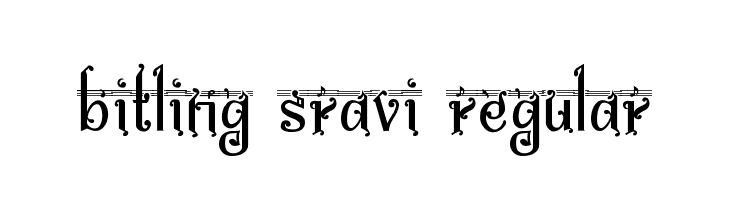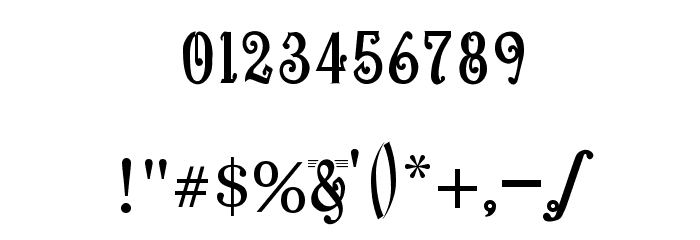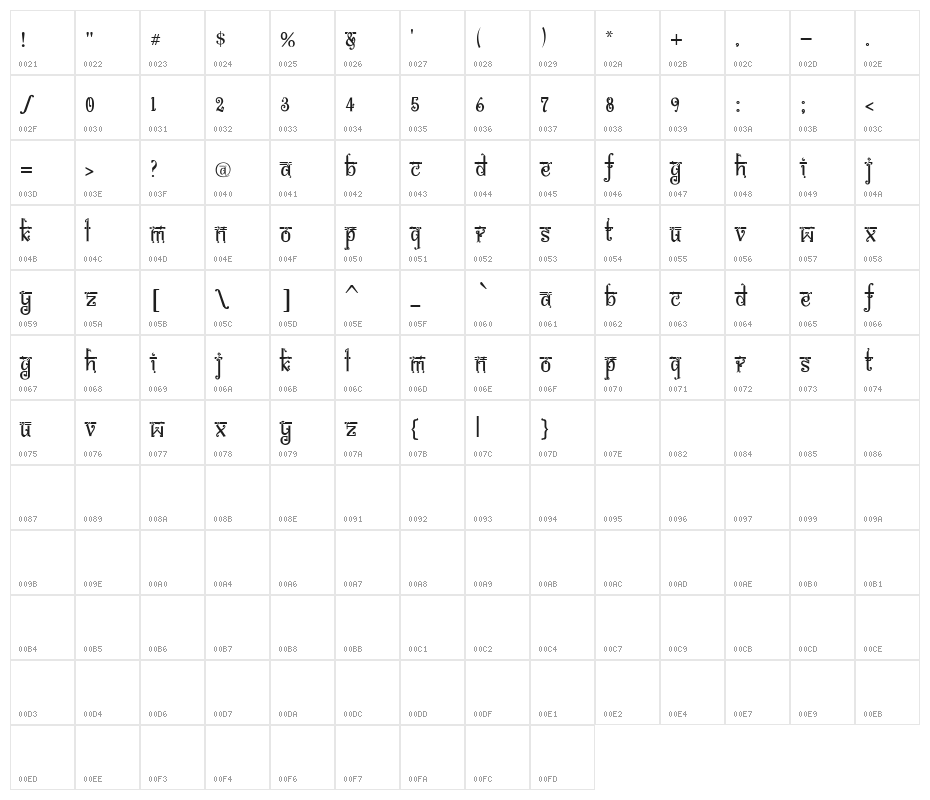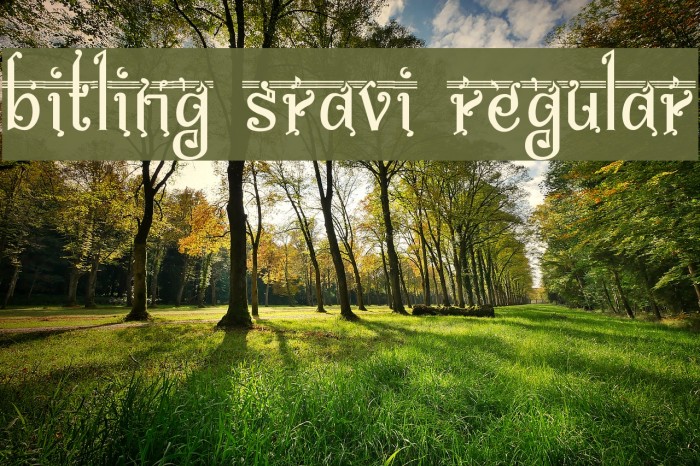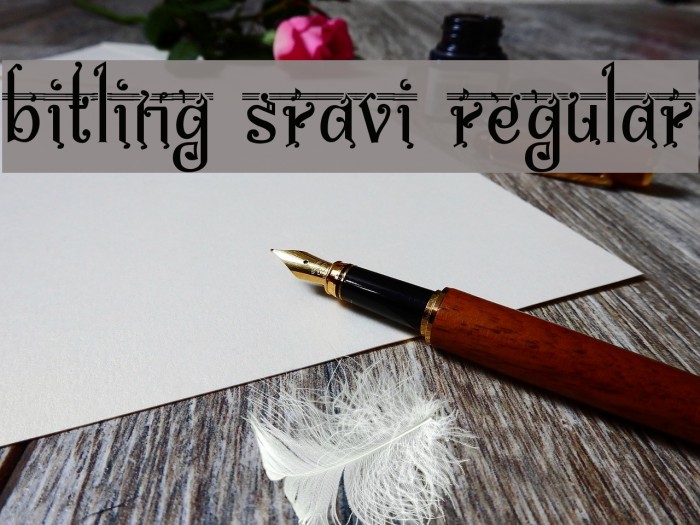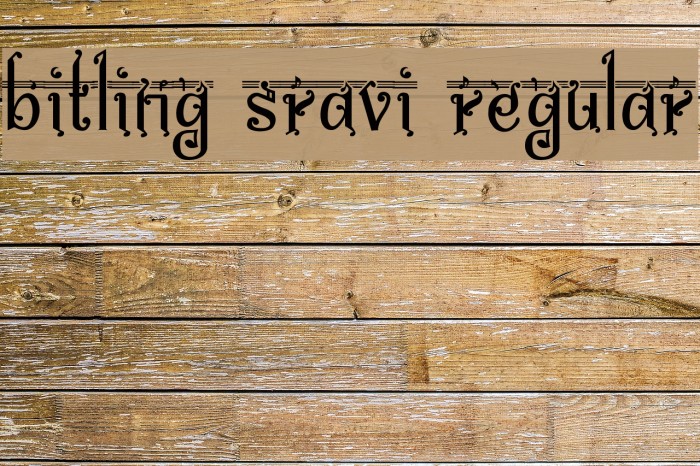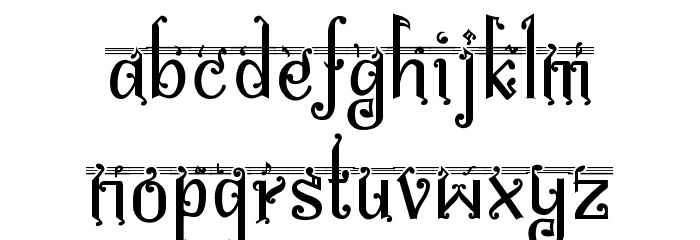
bitling Sravi Regular Font
bitling Sravi Regular Description
This font features a unique blend of modern and decorative styles, characterized by its distinct, ornate serifs and intricate detailing. Each character is crafted with a high level of artistry, incorporating elements that resemble musical notes or calligraphic flourishes. The uppercase and lowercase letters maintain a consistent style, with elongated ascenders and descenders that add to its decorative appeal. The numerals and special characters are equally stylized, ensuring a cohesive look across all glyphs. This font's intricate design makes it stand out, offering a visually striking appearance that is both elegant and bold.
| Proposed Projects | Ideal for music-themed designs, artistic posters, or branding that requires a touch of elegance and uniqueness. |